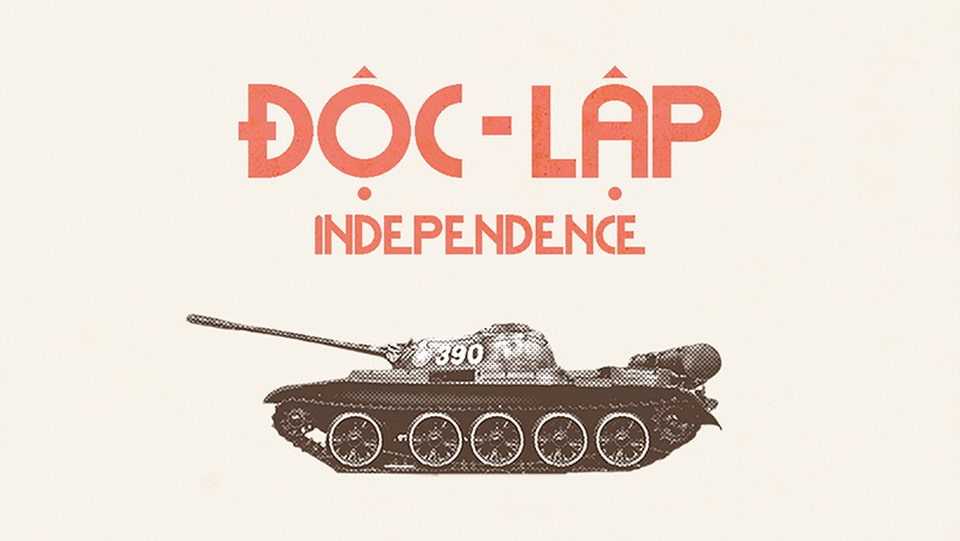
Download Doc Lap (Independence) font, a typeface based on the bold font style of Vietnam posters during wartime. Doc Lap font is inspired by Propaganda Art – an effective ‘weapon’ in the anti-imperialist resistance war.
Designer: Đặng Anh Khoa